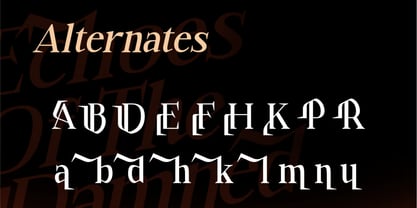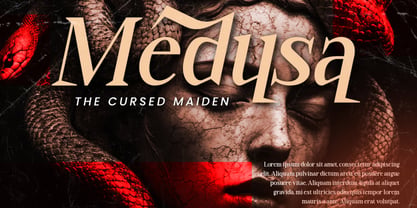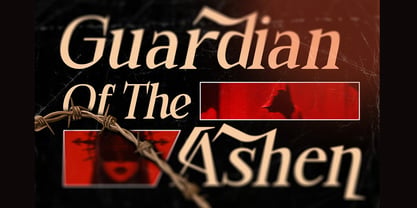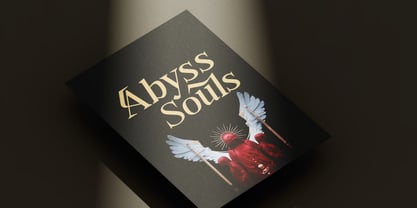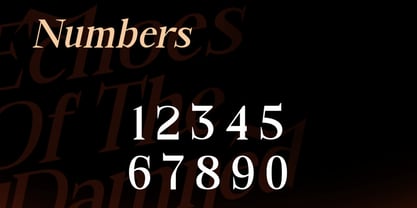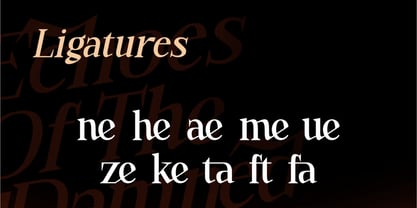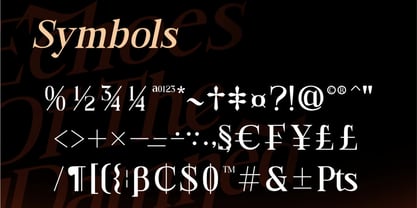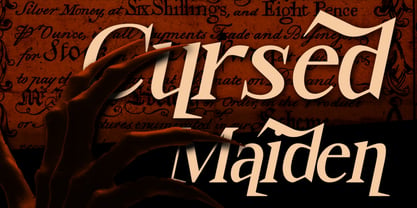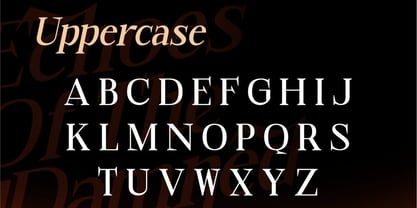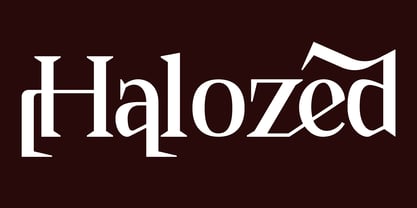
Halozed
Halozed is a premium modern gothic serif font designed for creatives who want to bring a distinctive, dramatic, and sophisticated personality to their designs. Combining the bold character of gothic typography with refined serif details, Halozed creates a striking visual presence that feels powerful, mysterious, elegant, and contemporary.
Its unique combination of sharp gothic influences and sophisticated serif structure makes Halozed an excellent choice for projects that demand a strong and memorable typographic identity. Whether you're creating a luxury logo, fashion brand, editorial headline, album cover, poster, packaging design, or promotional campaign, this modern gothic serif typeface adds depth and character to every composition.
With stylish ligatures, alternate characters, multilingual support, and PUA encoded glyphs, Halozed gives designers greater creative flexibility while remaining easy to use across popular design applications.
• Modern Gothic Serif Design: A distinctive combination of gothic character and contemporary serif elegance.
• Premium Display Aesthetic: Designed to create powerful visual impact in headlines, titles, and branding.
• Stylish Ligatures: Creative letter combinations for sophisticated and personalized typography.
• Alternate Characters: Add variation and individuality to logos, titles, and display compositions.
• Multilingual Support: Suitable for a wide range of international design projects.
• PUA Encoded Characters: Easily access special glyphs without requiring additional specialized software.
• Distinctive Letterforms: Perfect for designers looking for an unconventional alternative to traditional serif fonts.
• Gothic Logo & Branding: Create bold, mysterious, and memorable visual identities.
• Fashion Branding: Perfect for alternative fashion, luxury labels, streetwear, and editorial campaigns.
• Editorial & Magazine Design: Adds dramatic character to magazine titles, headlines, and covers.
• Album Covers & Music Artwork: Ideal for music branding, album artwork, posters, and promotional graphics.
• Posters & Advertising: Create attention-grabbing typography for campaigns and promotional materials.
• Luxury Packaging: Perfect for perfumes, cosmetics, beverages, fashion products, and premium packaging.
• Movie & Entertainment Design: Excellent for film titles, entertainment graphics, and promotional artwork.
• Social Media Graphics: Add a bold gothic aesthetic to posts, campaigns, quotes, and branded content.
• Book & Novel Covers: Particularly effective for fantasy, dark romance, mystery, gothic, and dramatic publications.
Give your designs a bold and distinctive identity with Halozed—a premium modern gothic serif font that blends dramatic gothic character with sophisticated serif styling. Featuring ligatures, alternate characters, multilingual support, and PUA encoded glyphs, Halozed is perfect for luxury branding, gothic logos, fashion identities, album covers, movie titles, posters, editorial design, packaging, book covers, and high-impact creative projects.